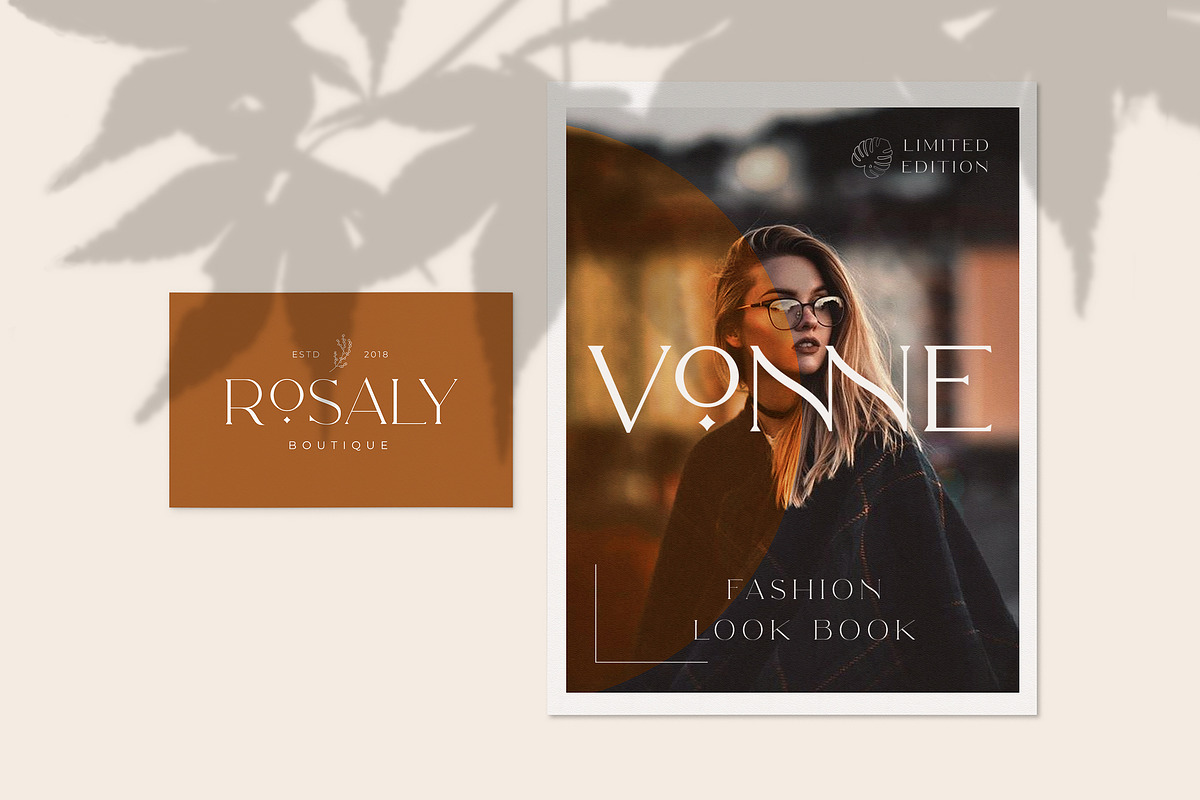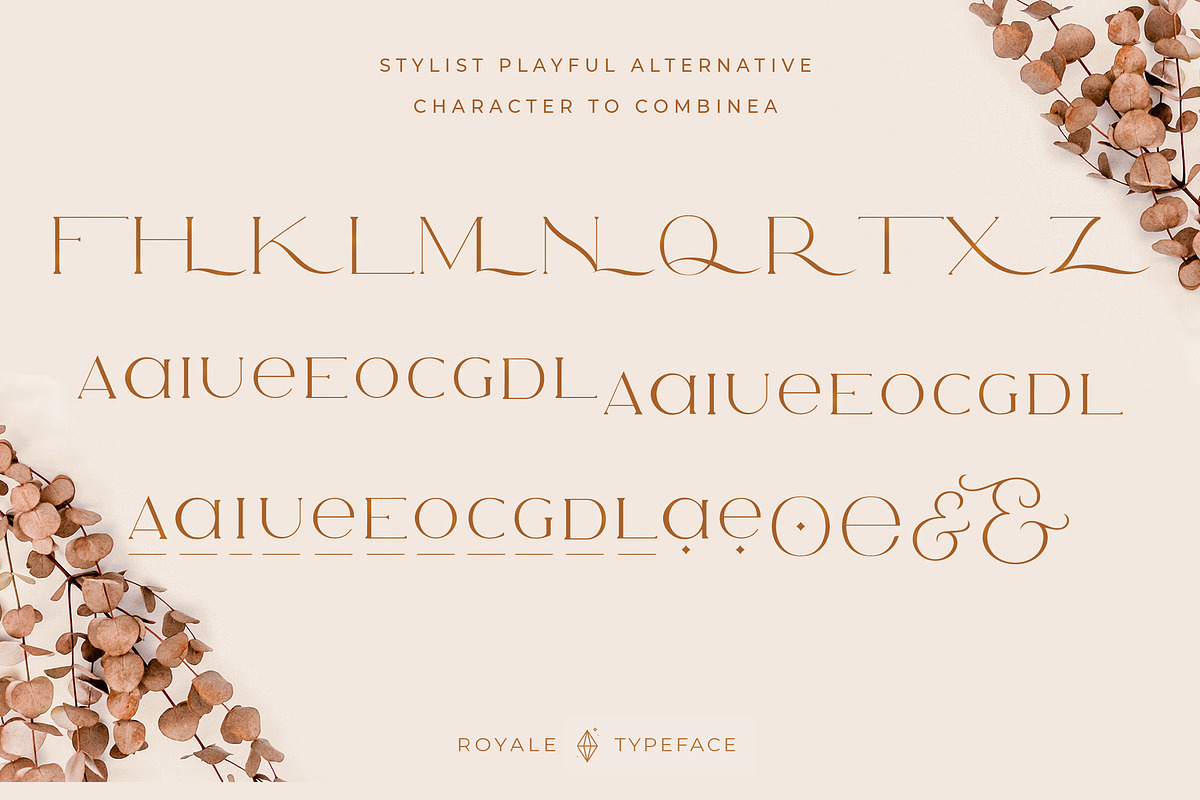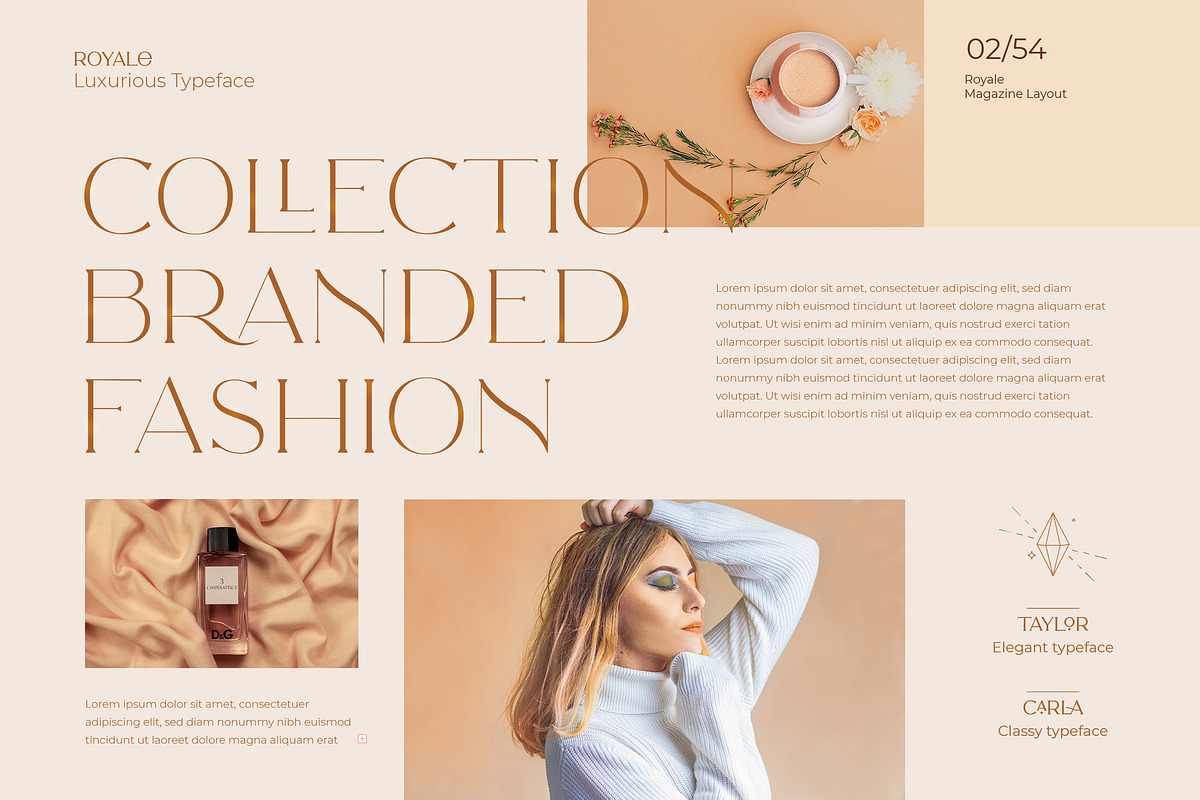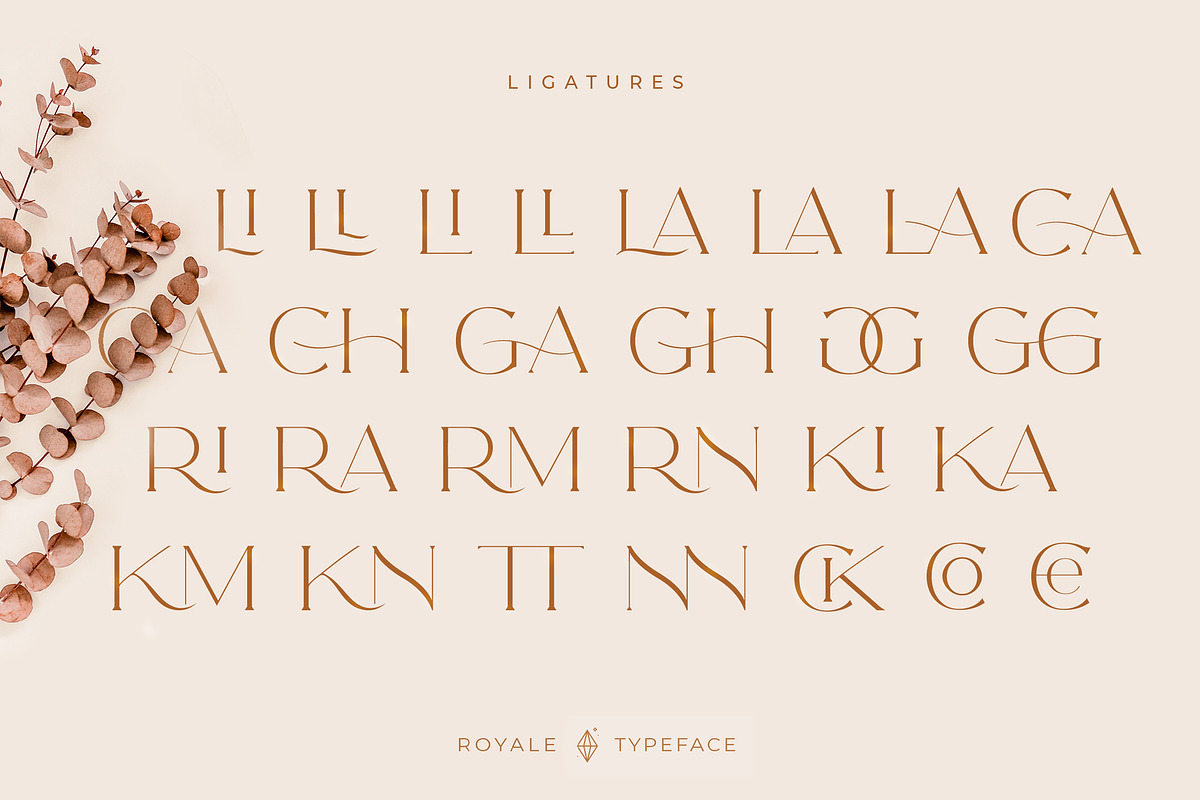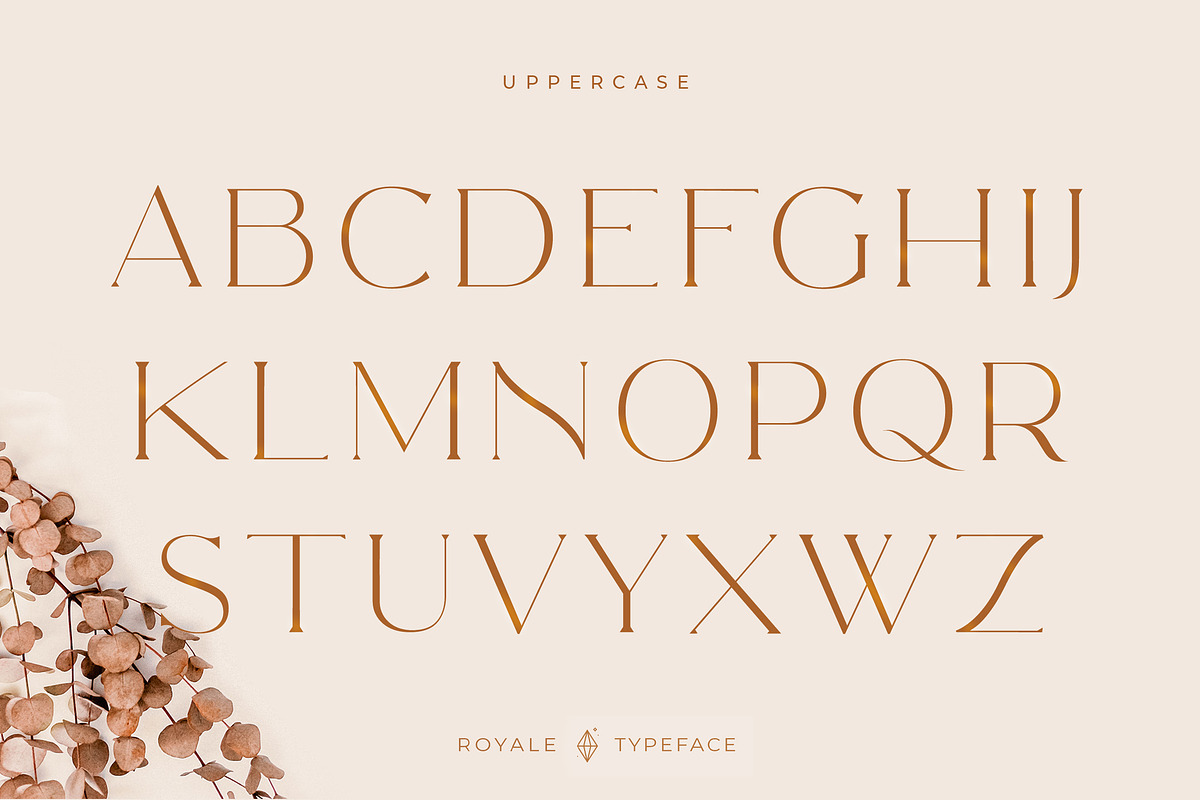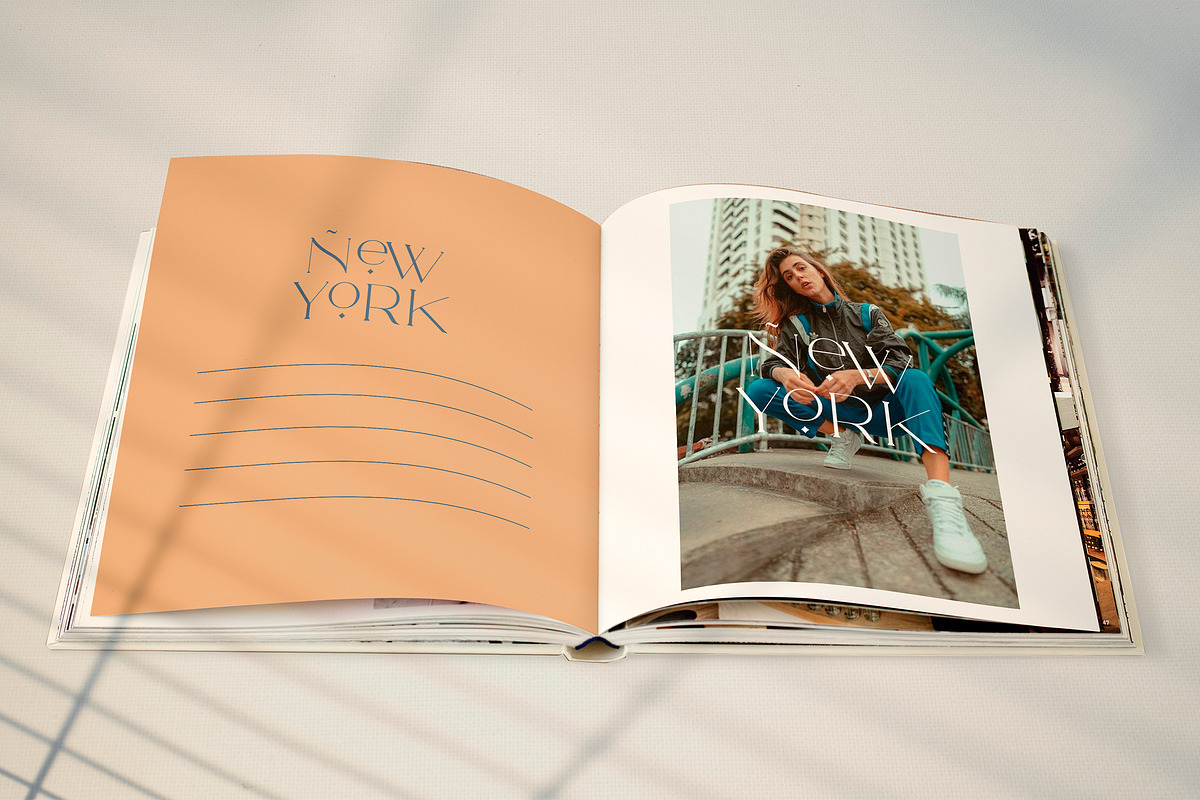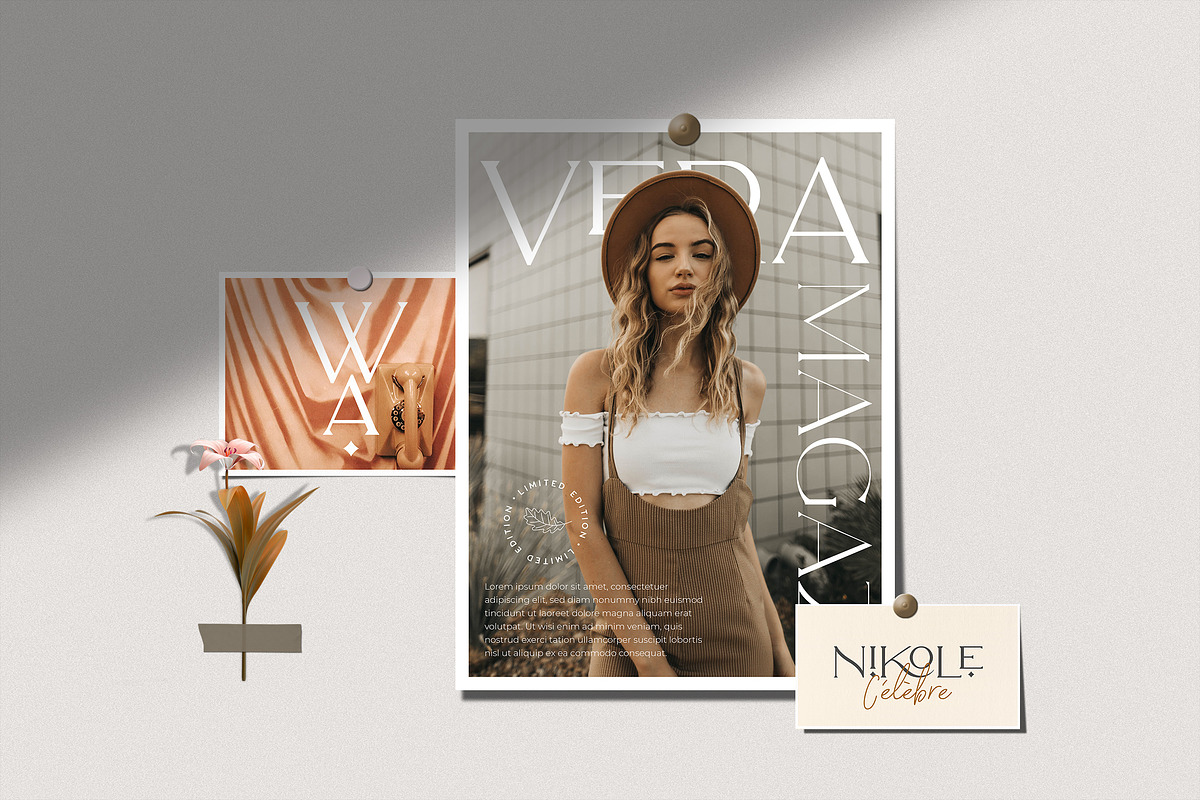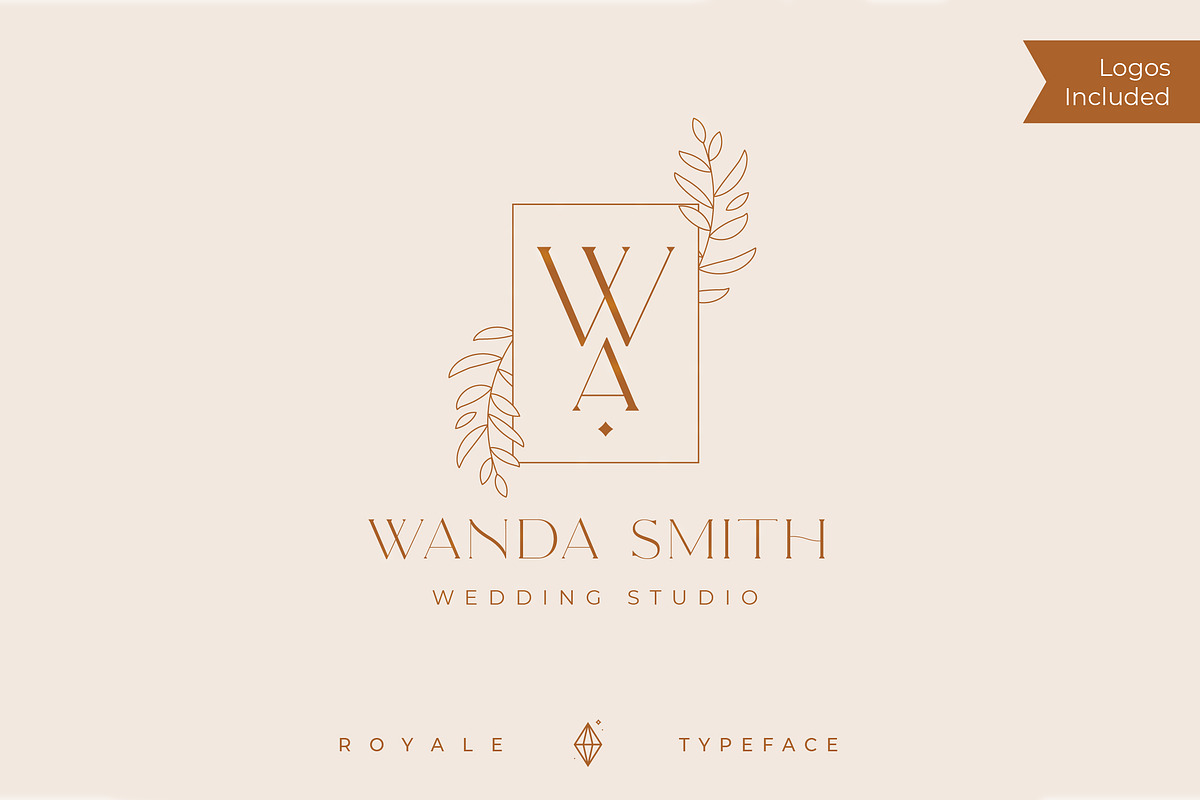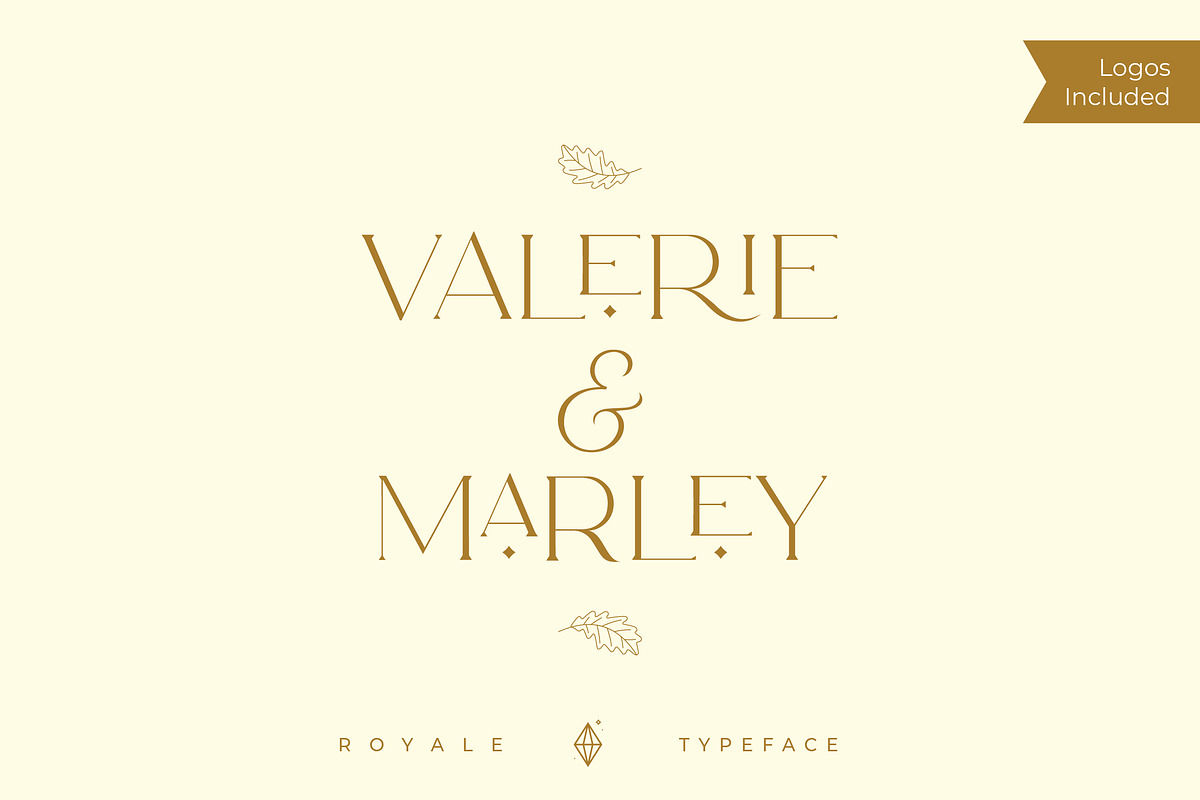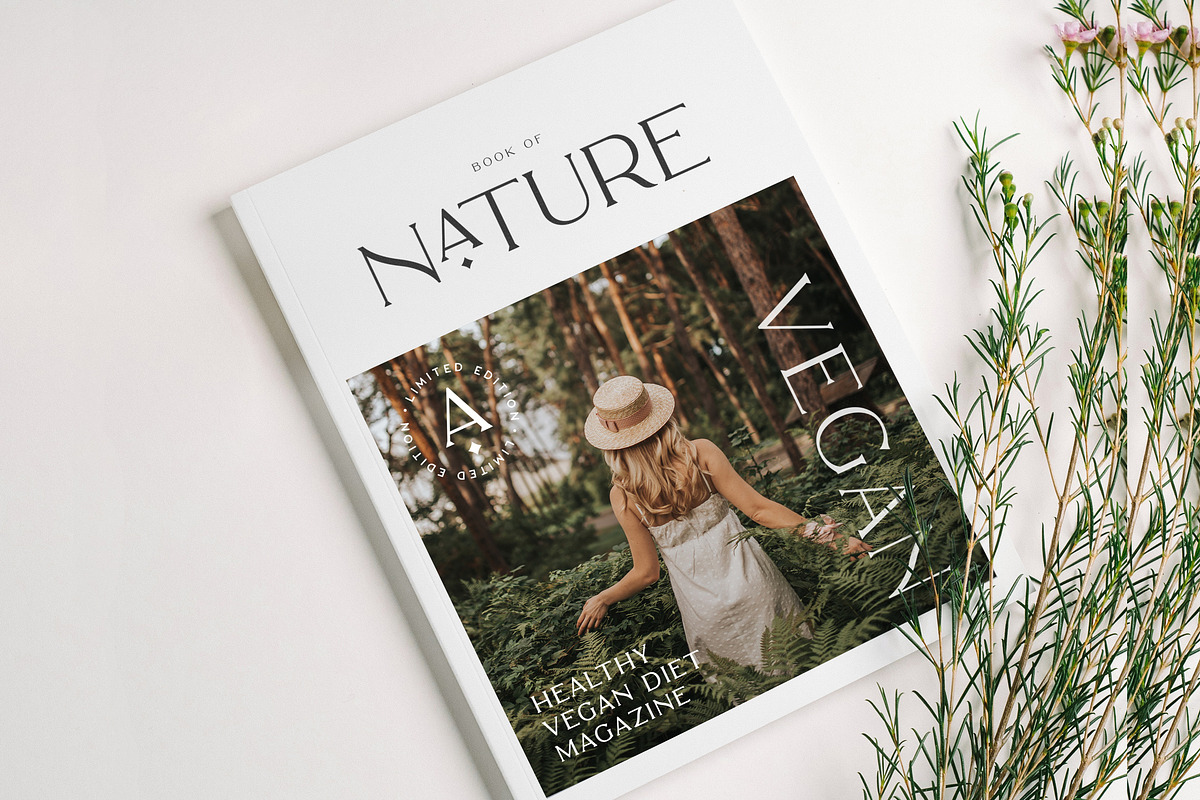
Introducing Royale Luxurious Typeface
Royale Luxurious is a Minimalist Modern Elegant font with beautiful ligatures, tons of special alternative glyphs, ornament and multilingual support. It's a very versatile font that works great in large and small sizes. Royale Luxurious is perfect for branding projects, Logo design, Clothing Branding, product packaging, magazine headers, or simply as a stylish text overlay to any background image.
4 Weights font
All caps
Stylistic Alternates & Ligatures
Accented characters
Multiple Languages Supported